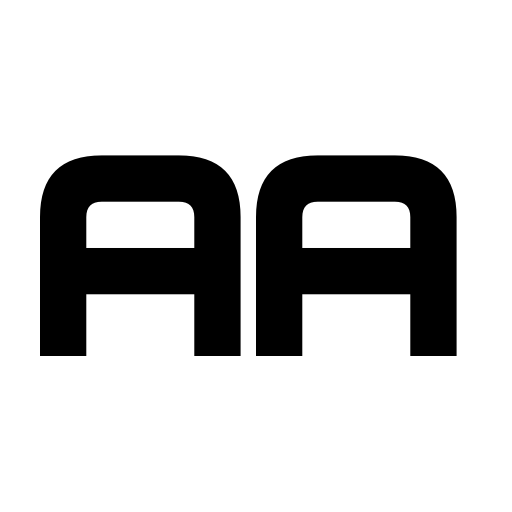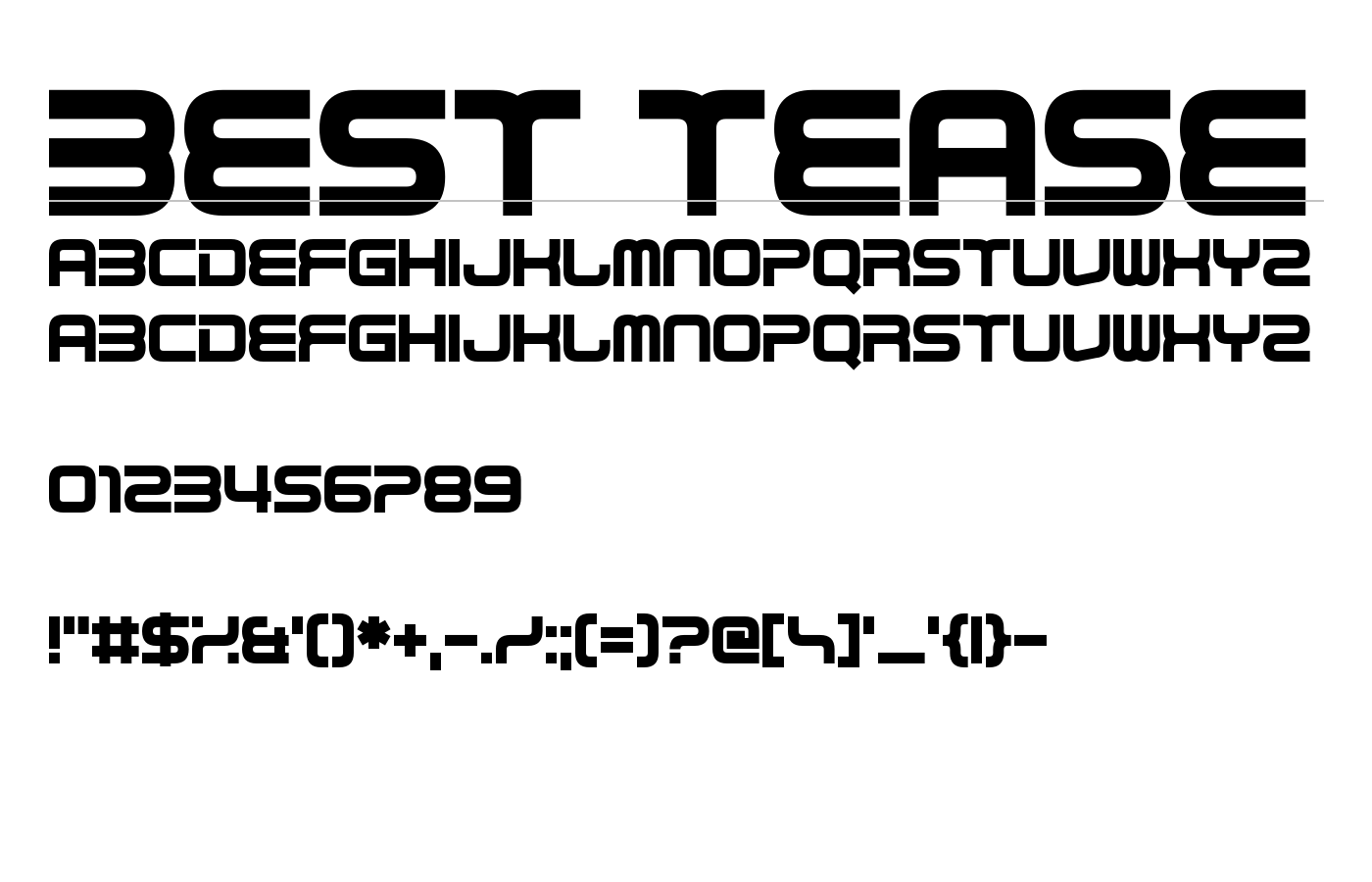
Best Tease Font is a bold, futuristic sans serif typeface with a wide, geometric structure and consistent medium stroke contrast. Its distinctive blocky letterforms, single-story characters, and tight spacing give it a modern, tech-inspired vibe perfect for eye-catching headlines, branding, and digital projects seeking a sleek and edgy look. This font works well for innovative brands and contemporary design themes that want to make a strong visual impact.
Best Tease Font
About Best Tease Font
| Font family | Best Tease Font |
| Designer | NAL |